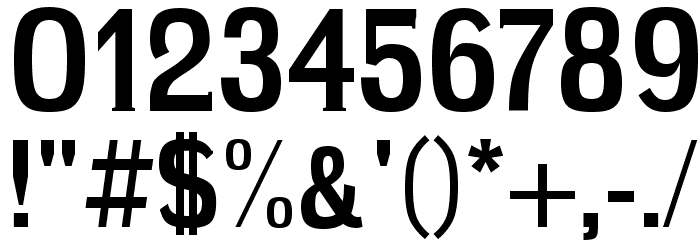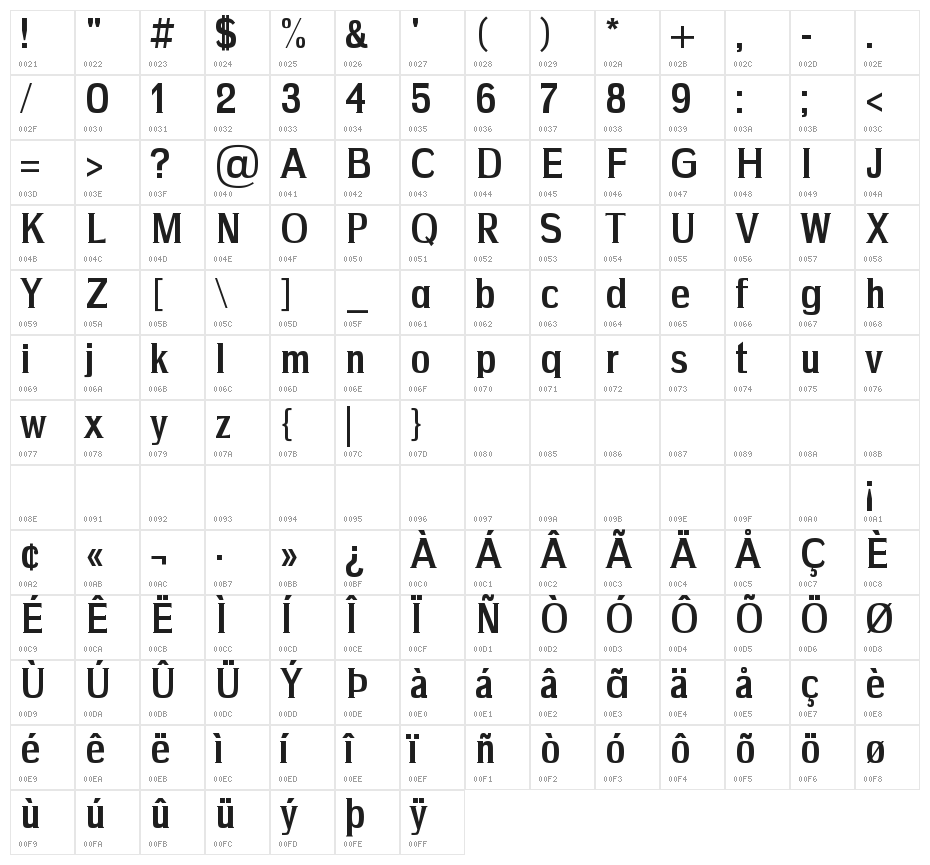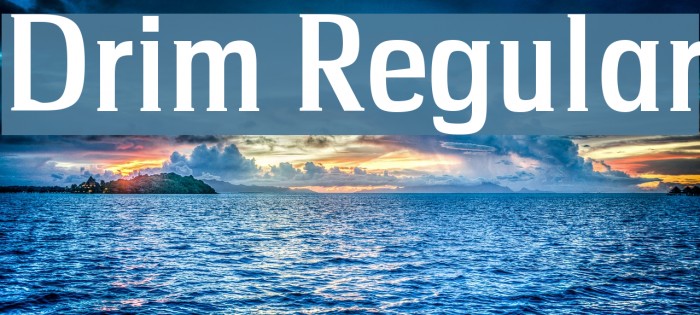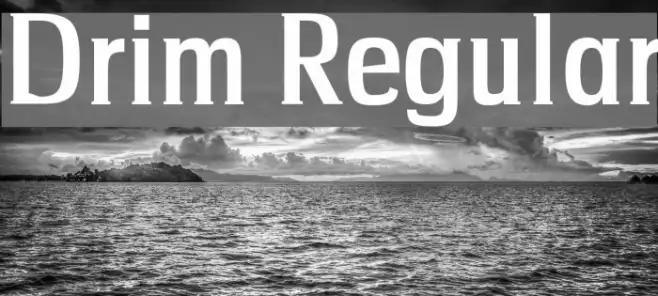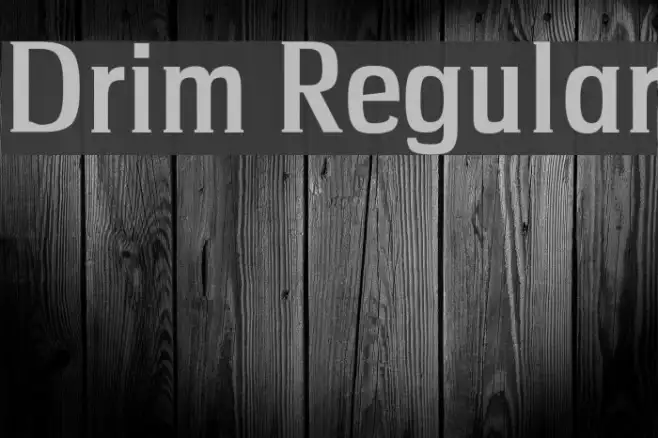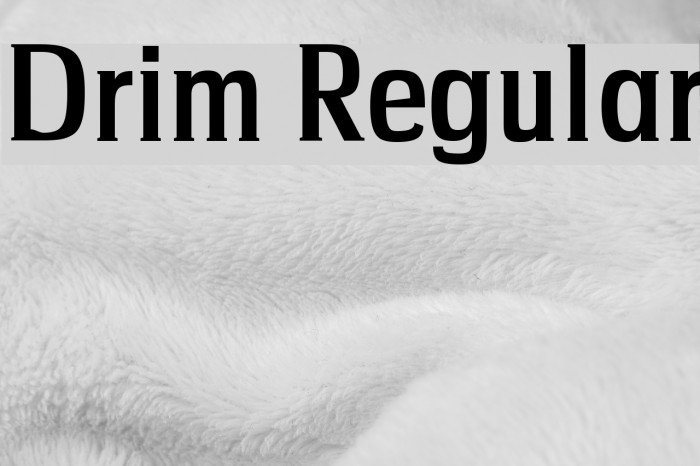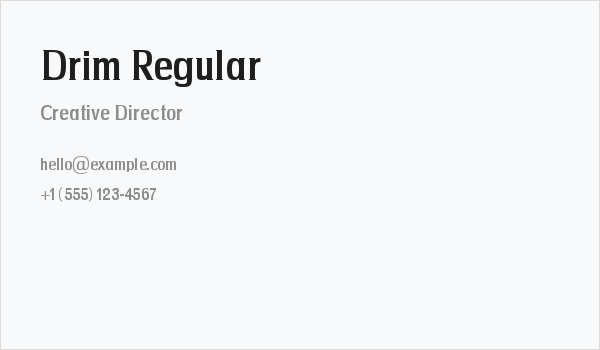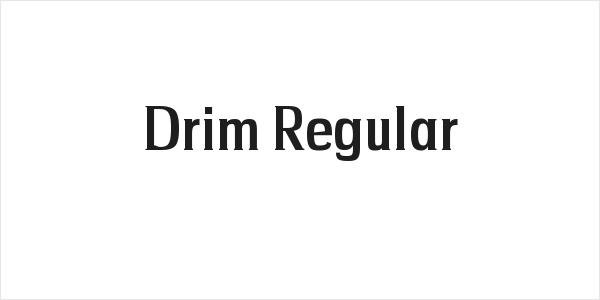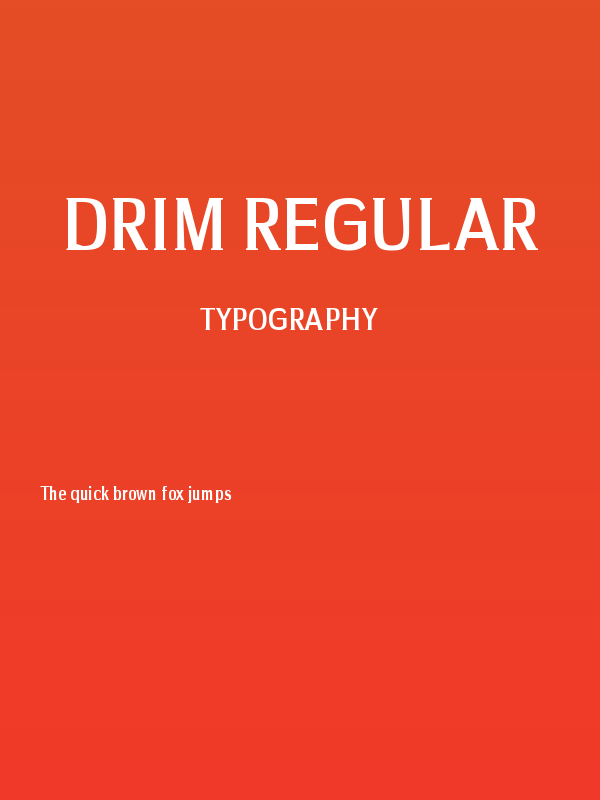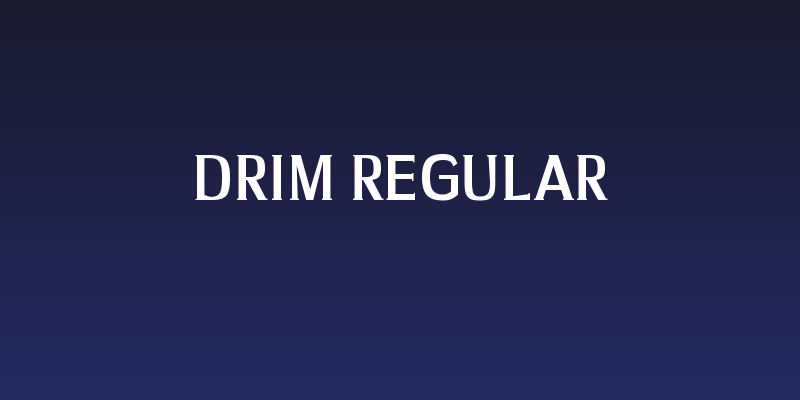
Drim Regular Font
This typeface features a clean and modern design, characterized by its sans-serif style. The letters are well-proportioned with a consistent stroke width, giving it a balanced and professional appearance. The uppercase characters are bold and commanding, while the lowercase letters maintain a friendly and approachable feel. The numerals are clear and legible, making them suitable for various applications. Special characters are included, enhancing its versatility. The overall design is straightforward yet impactful, making it ideal for both digital and print media.
A modern sans-serif typeface with clean lines and balanced proportions.
• Proposed Projects: Ideal for branding, advertising, web design, and editorial layouts.
• Category: Sans-Serif
• Bold: No
• Italic: No
• Weight: Regular
• Width: Normal
• Character Spacing: Normal
• Contrast: Low
• Overall Style: Modern
• Use Case: Headlines, Body text, Logos